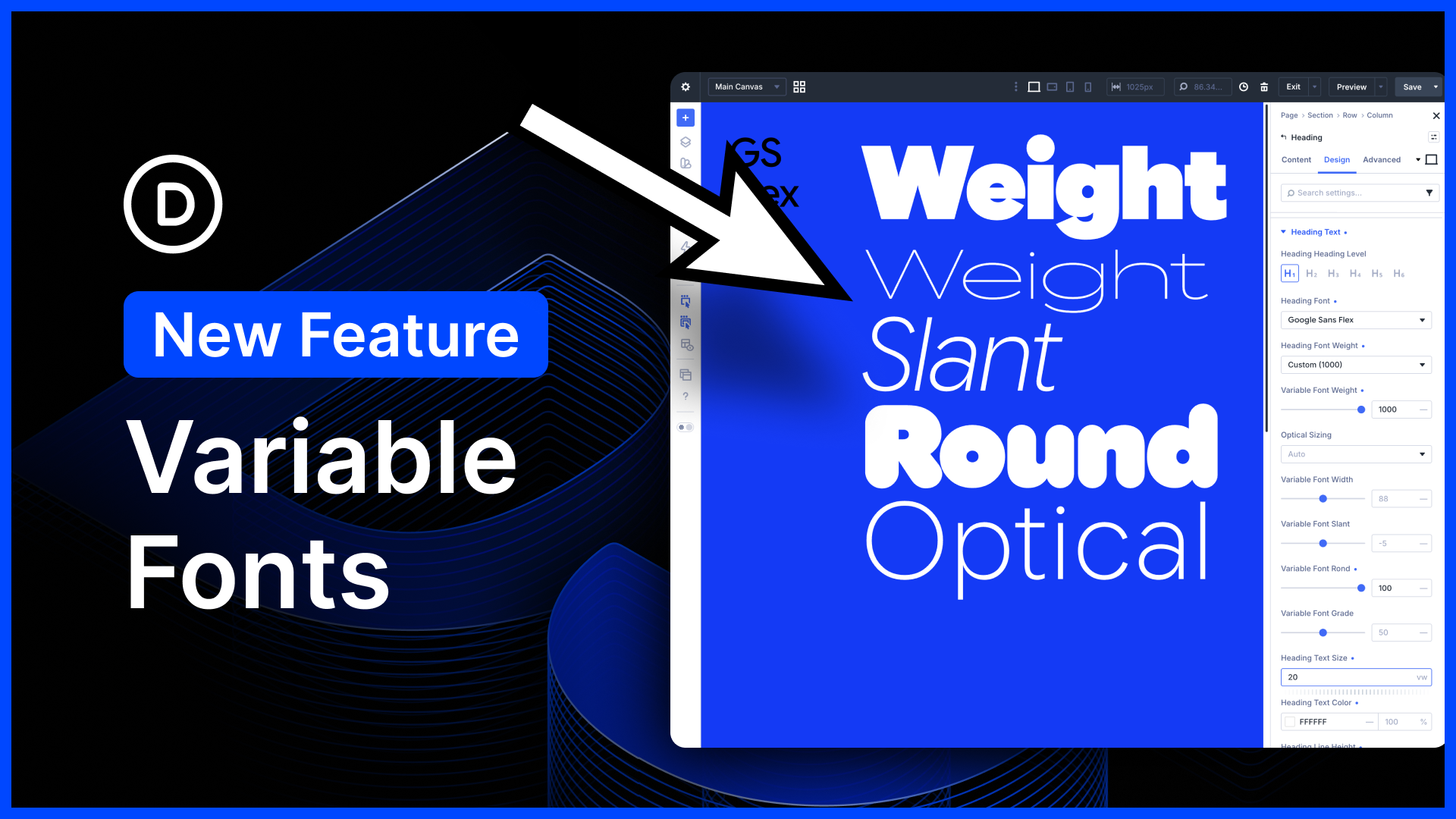
Variable Fonts And New Text Styling Options For Divi 5
I am excited to announce variable font support and many new text styling options for Divi 5!
Divi 5 now supports the latest Google Fonts collection, including variable fonts and the dozens of new controls they provide. If you aren’t familiar with variable fonts, keep reading because they are amazing.
We also added many new text styling options that allow you to create magazine-style text layouts, style dropcaps, and give you more control over text stroke, spacing, and more. When it comes to typography, Divi 5 now has it all.
Variable Fonts and Font Axis
Variable fonts are wonderful. Unlike traditional fonts, they give you fine-tuned control of many things, such as weight, slant, width, height, roundness, shape, and so much more.
Depending on the variable font you choose, Divi will give you a new set of controls, allowing you to make each font your own and smoothly transition between each axis.
New Variable Font Controls
Traditional fonts come with a few variations, such as bold and italic. Variable fonts, on the other hand, are adjustable. Instead of picking from a small subset of variations, you can adjust the font style using new controls that give you wide adjustment ranges.
For example, instead of picking between the thin, regular, medium, and bold font weights, you can slide through a random range of 200-900. That’s 796 new font weights!
But variable fonts give you control over so much more than just weight. Depending on the variable font you choose, you’ll see many new options.
New Text Styling Options
In addition to the many new options that variable fonts introduce, we also added new base-level settings to all title and body font option groups.
1. Text Columns – Create magazine-style column layouts without separating text into different containers. By creating columns with CSS, text flows naturally through each column and looks great on every device.
2. Drop Caps – We added a new drop caps tab to the body text option group, which allows you to create and style drop caps in all modules.
3. Text Direction – The new text direction settings allow you to create text that lines up on a vertical axis. It opens up many interesting new layout opportunities.
4. Stroke Position – We recently added gradient text and text strokes to Divi 5. This small follow-up lets you control the stroke position (either center or outside). When placing the stroke outside, it won’t clip the text, which is typically preferred.
5. Capitalization – We separated text styling and capitalization settings and added the full range of capitalization options.
6. Paragraph & List Spacing – These new settings let you control the space between paragraphs and the space between list items; you will find them in the body text option group.
7. Hyphenation – Enabling hyphenation causes long words that exceed the width of the parent container to hyphenate and break to the next line, rather than breaking through the container’s boundaries.
8. Line Wrap Style – You can now choose between different line wrap styles, which control how text breaks to new lines.